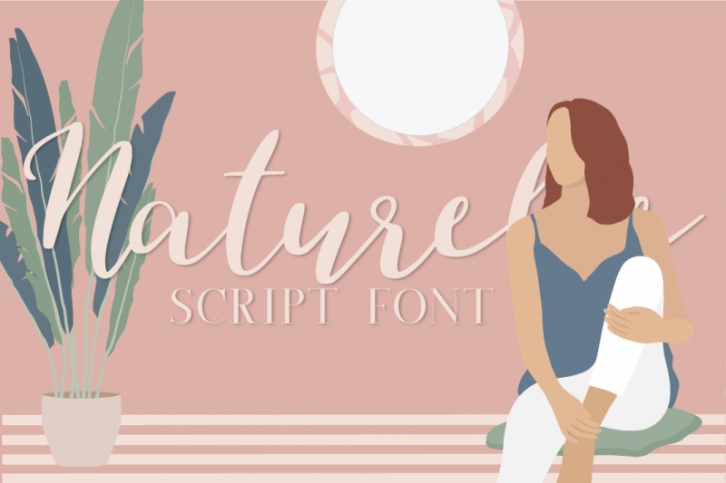
Naturelle Script Font, made exclusively by LoveSVG.com, is a cut friendly font compatible with Cricut, Silhouette, SCAL and Scan N Cut. Its thickness makes it an ideal font for making cut files.